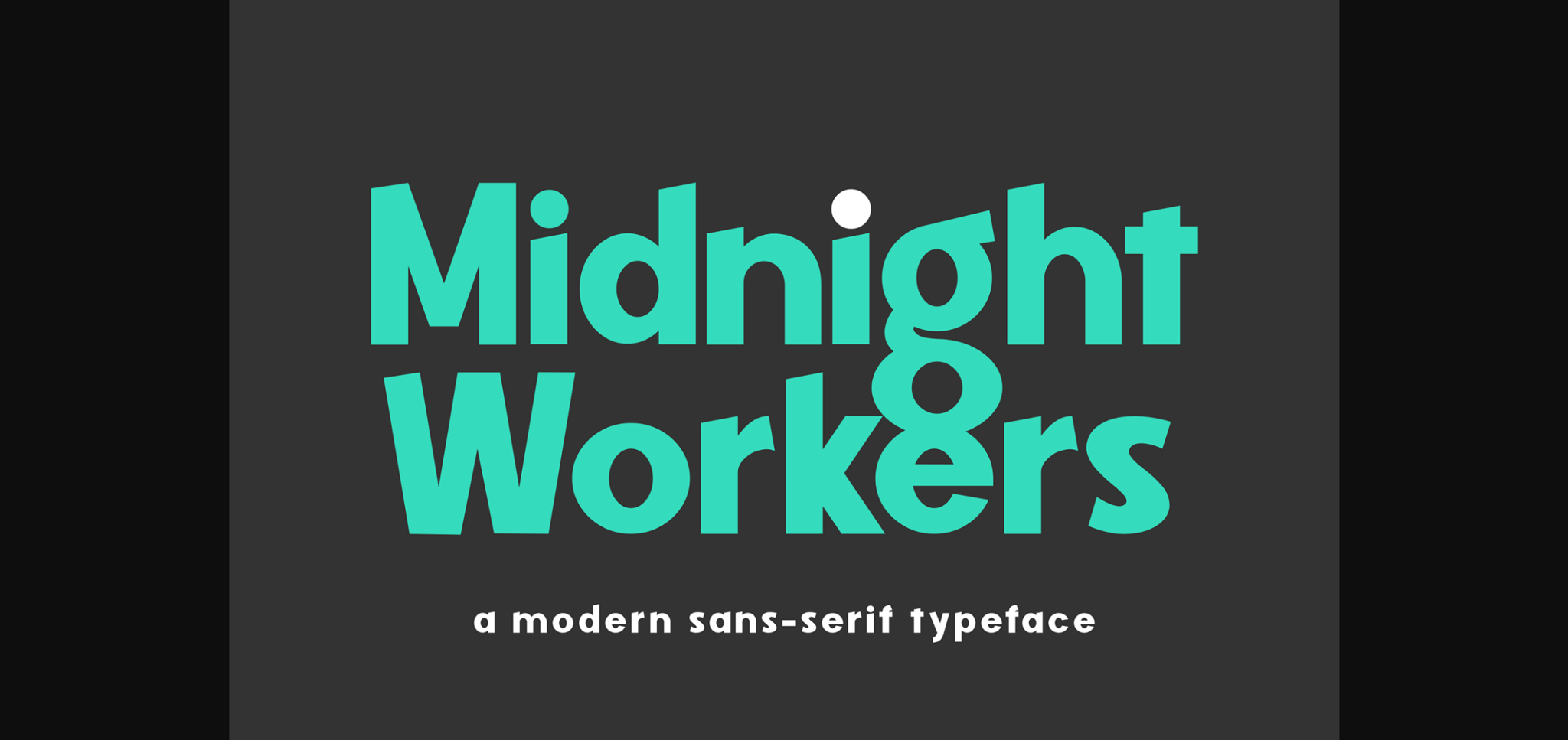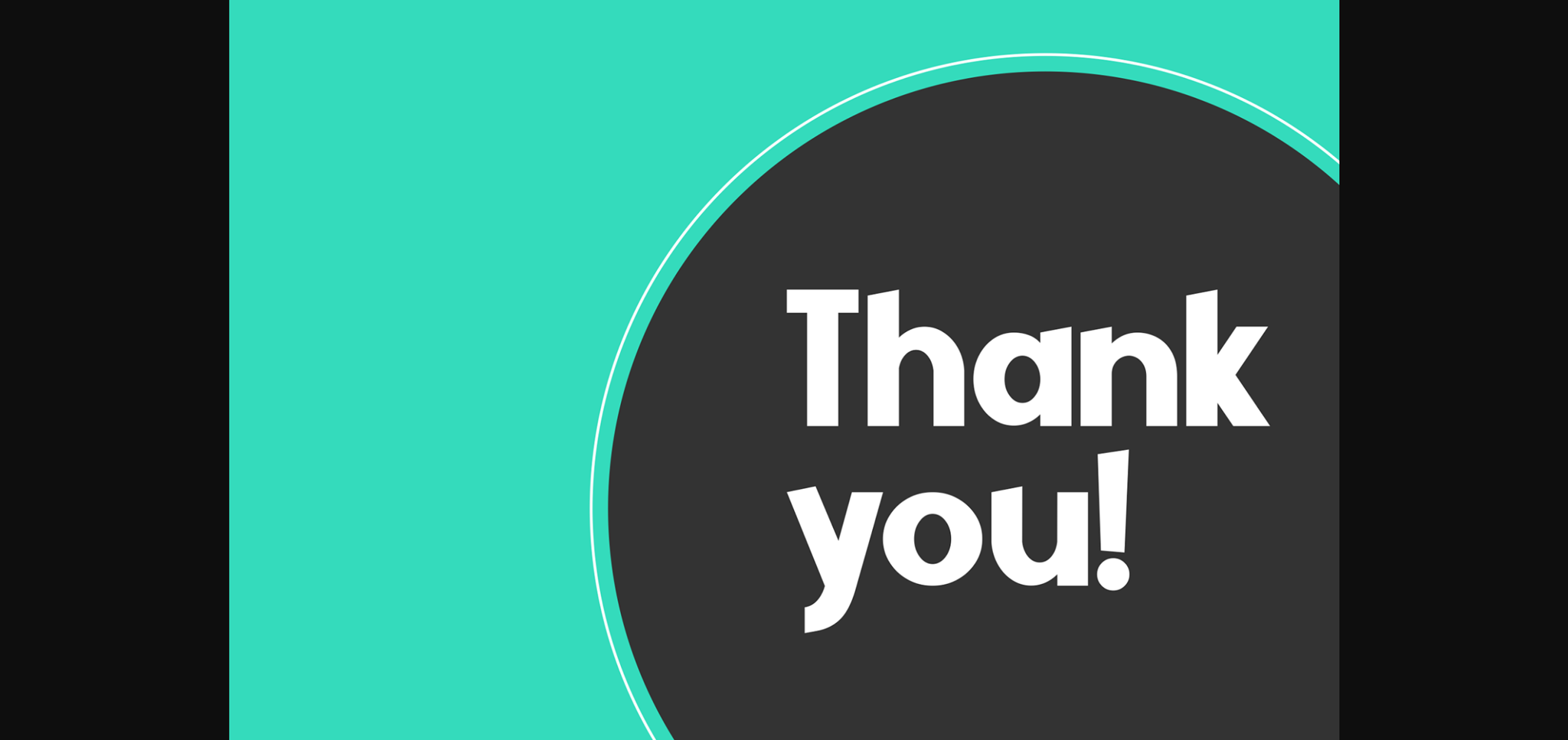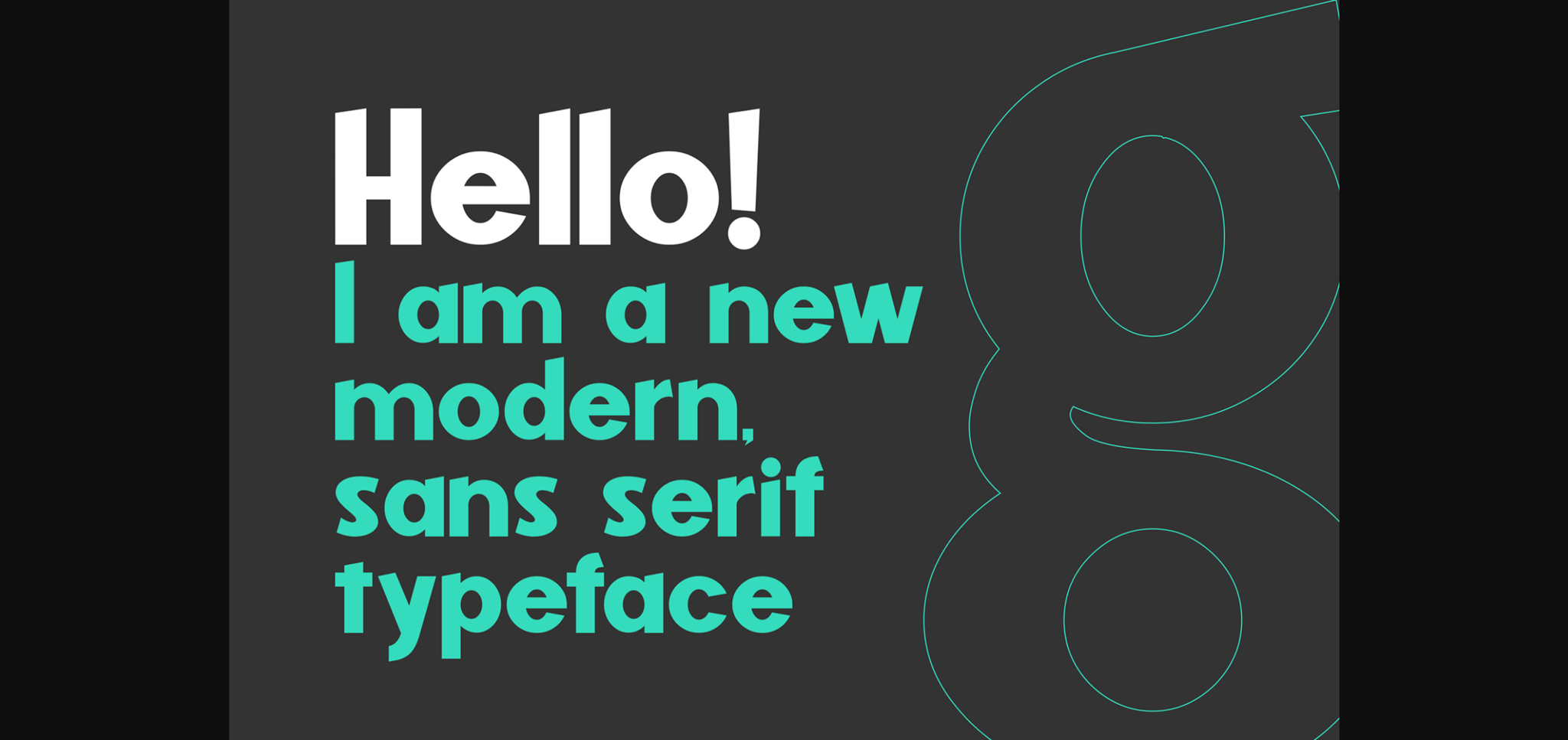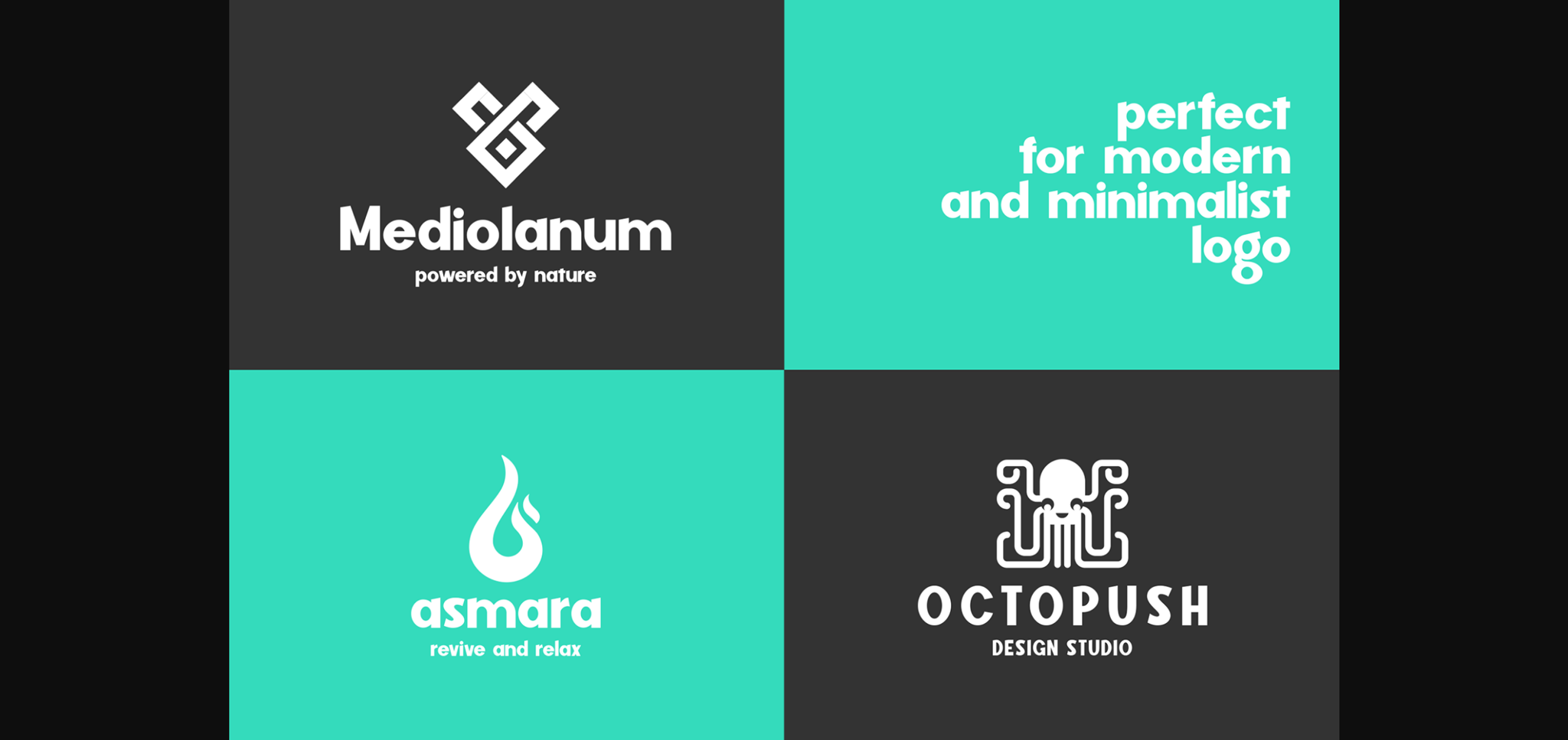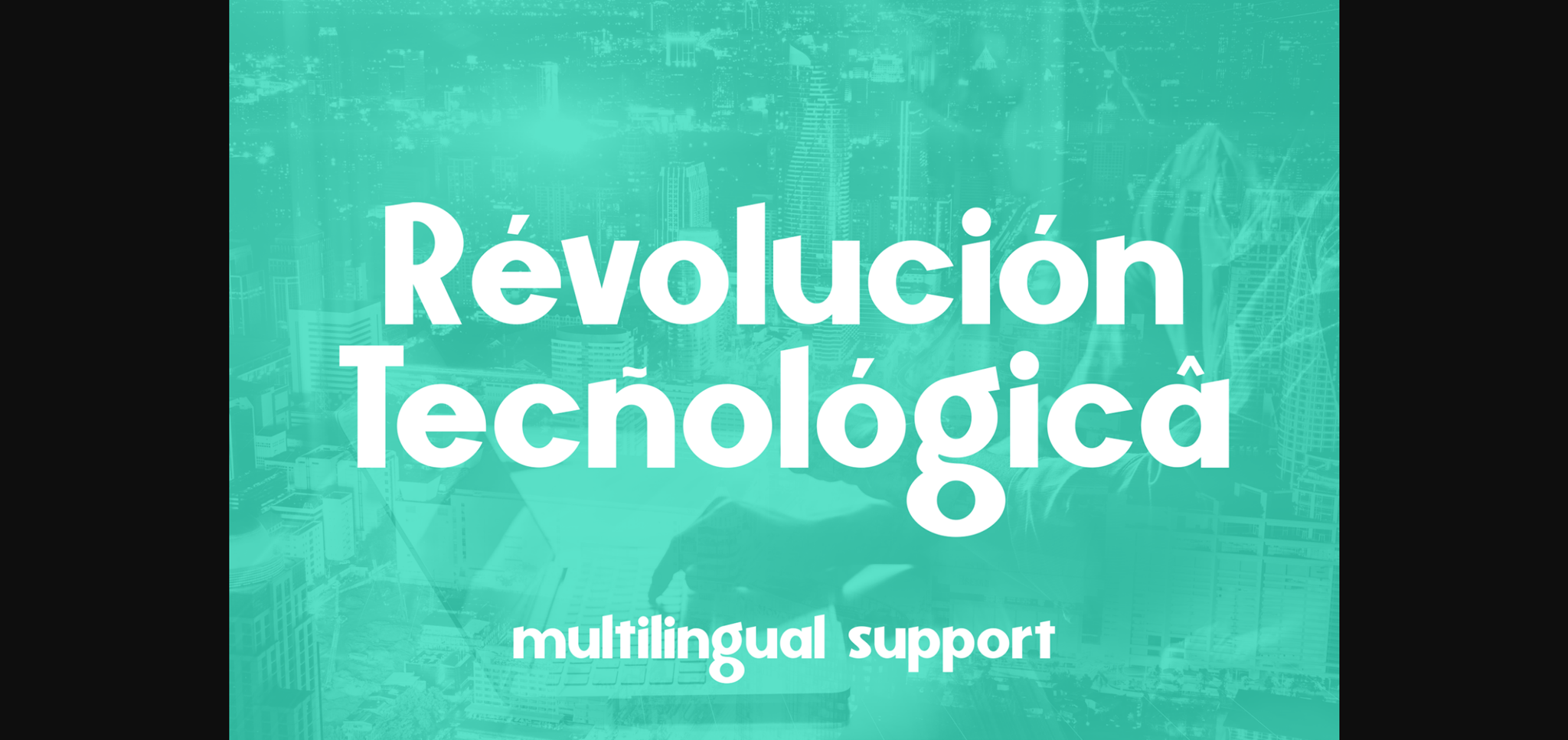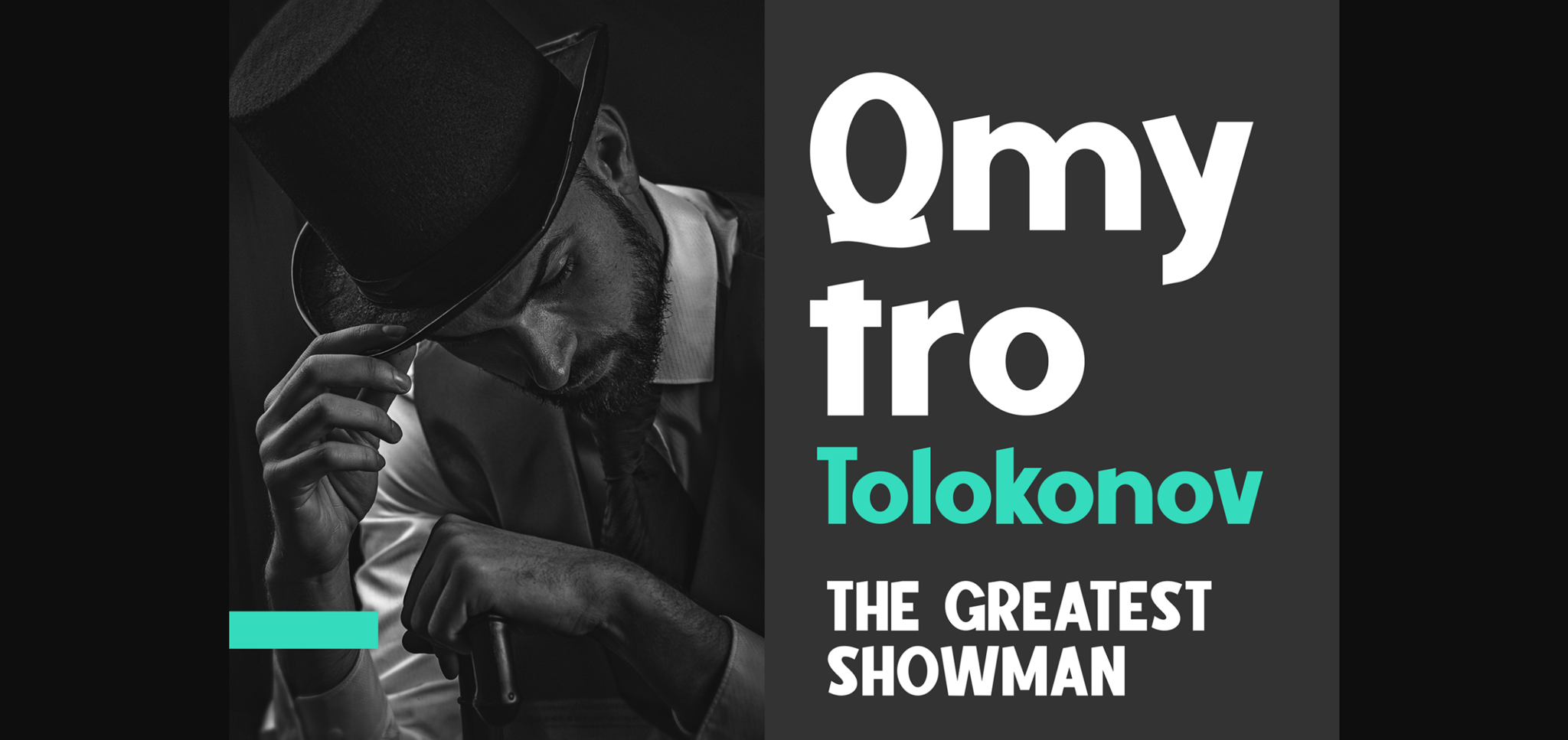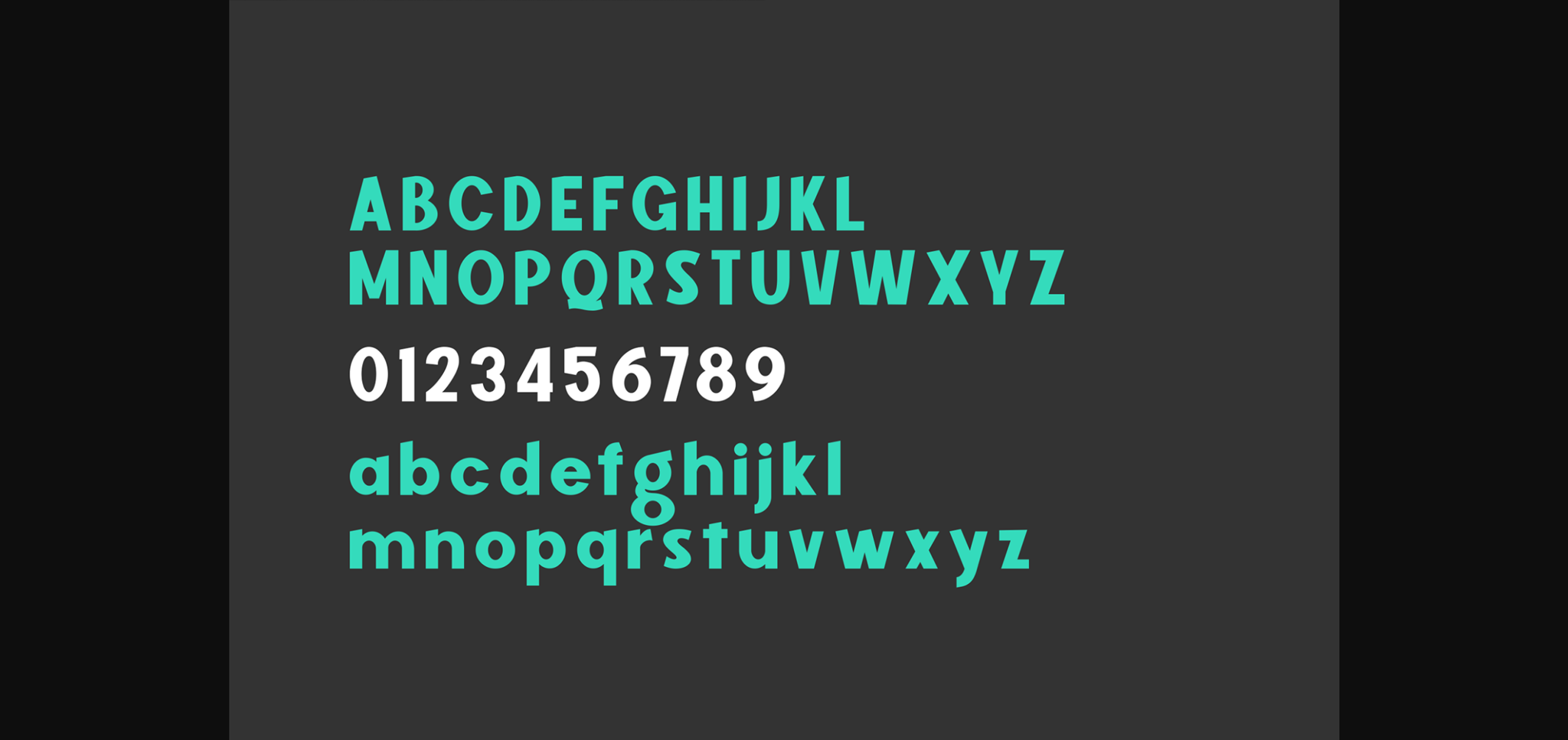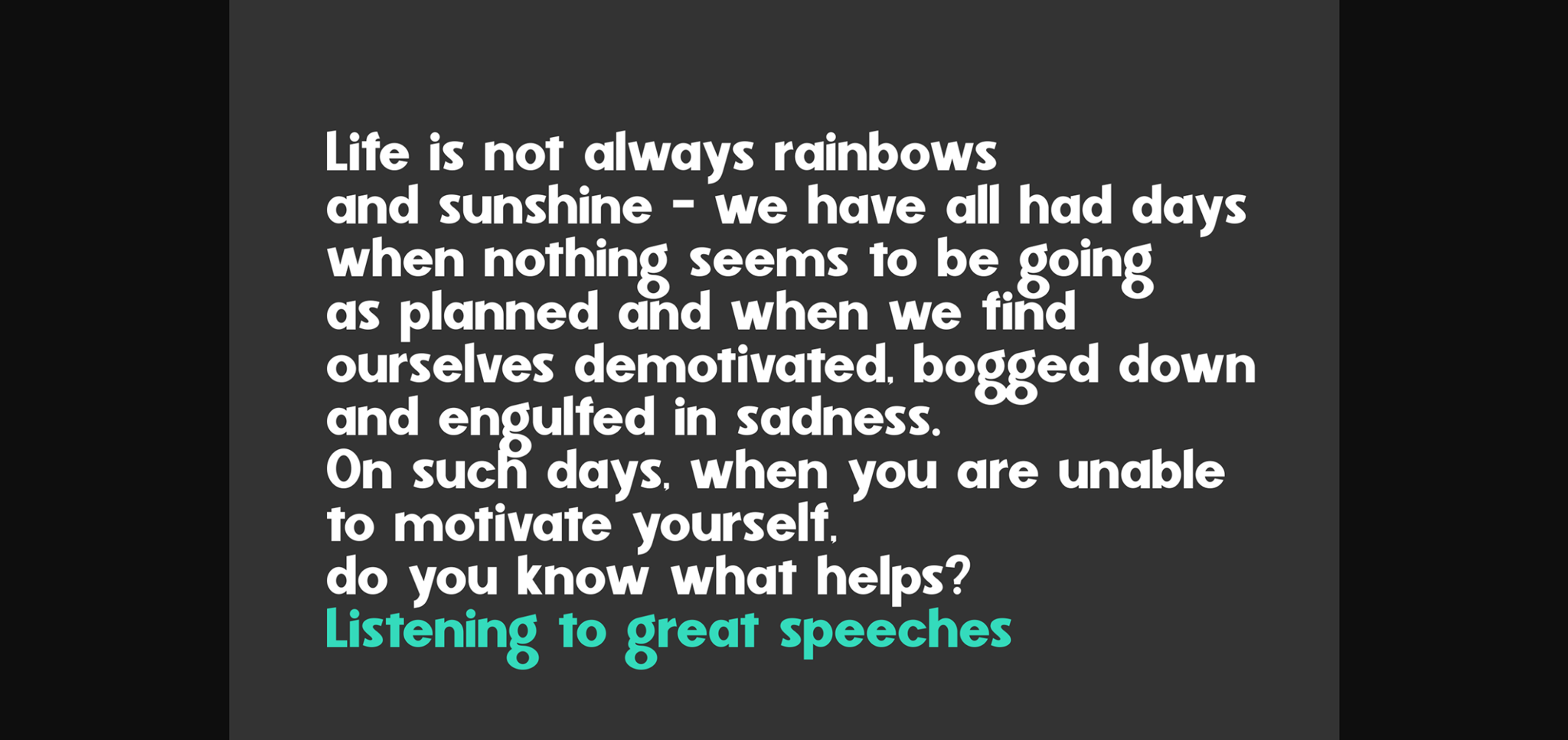
Midnight Workers Font
About Midnight Workers Font
Midnight Workers is a modern and unique sans-serif font. It can easily be matched to an incredibly large set of projects, so add it to your creative ideas and notice how it makes them stand out!